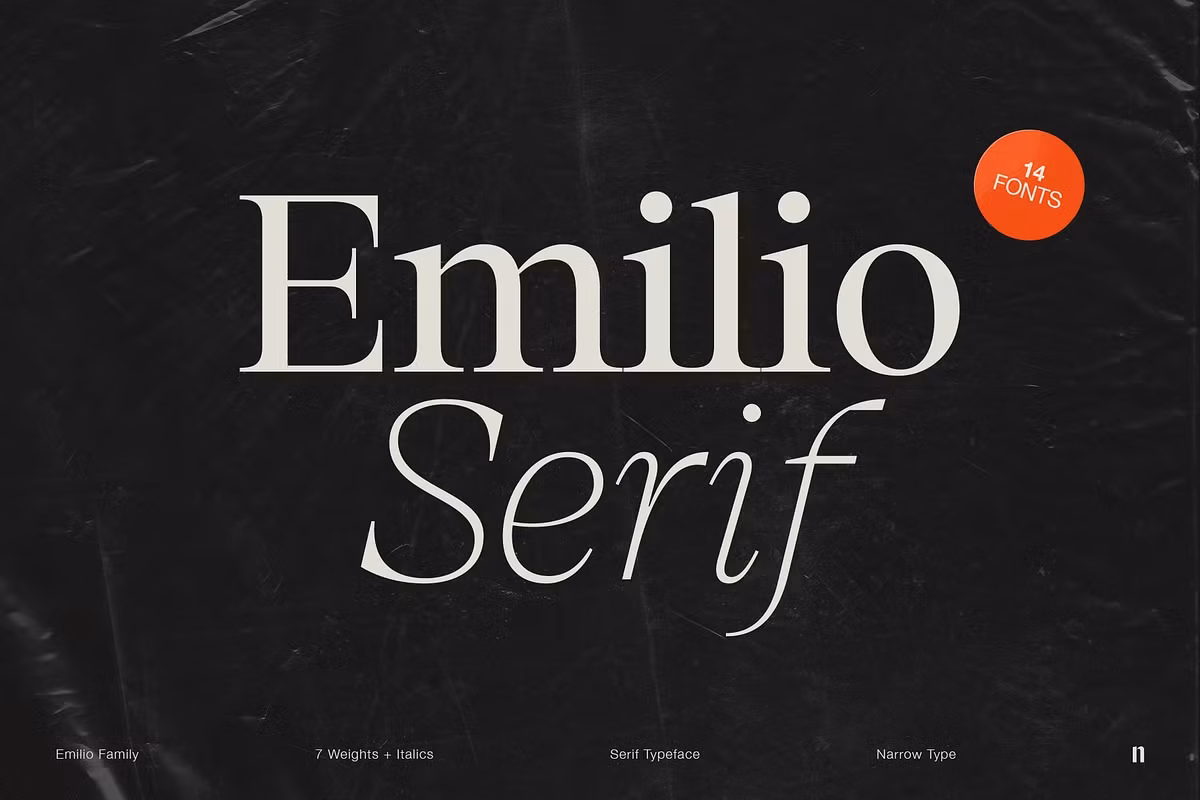
Emilio Serif Family (14 fonts) Free Download is an expansive and elegant typeface collection featuring 14 fonts that cater to a variety of design needs. This versatile family includes a mix of regular, bold, and italic styles, making it perfect for creating sophisticated logos, branding, editorial designs, websites, and more. Whether you’re working on a luxury brand, a modern publication, or a creative campaign, Emilio Serif Family (14 fonts) Free Download offers the flexibility to create timeless designs with its balanced serifs and high readability. Experiment with the entire font family in personal projects before purchasing a commercial license and elevate your designs with this beautifully crafted serif font collection.